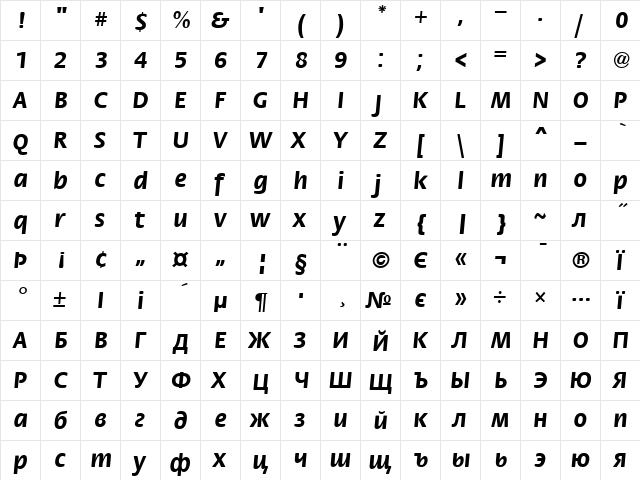
Fiesta Bold
Design Context for Fiesta Typeface
Fiesta takes a measured approach to typography — its balanced proportions and neutral character make it a reliable workhorse for both digital and print work. The heavy weight commands attention and anchors typographic hierarchies.